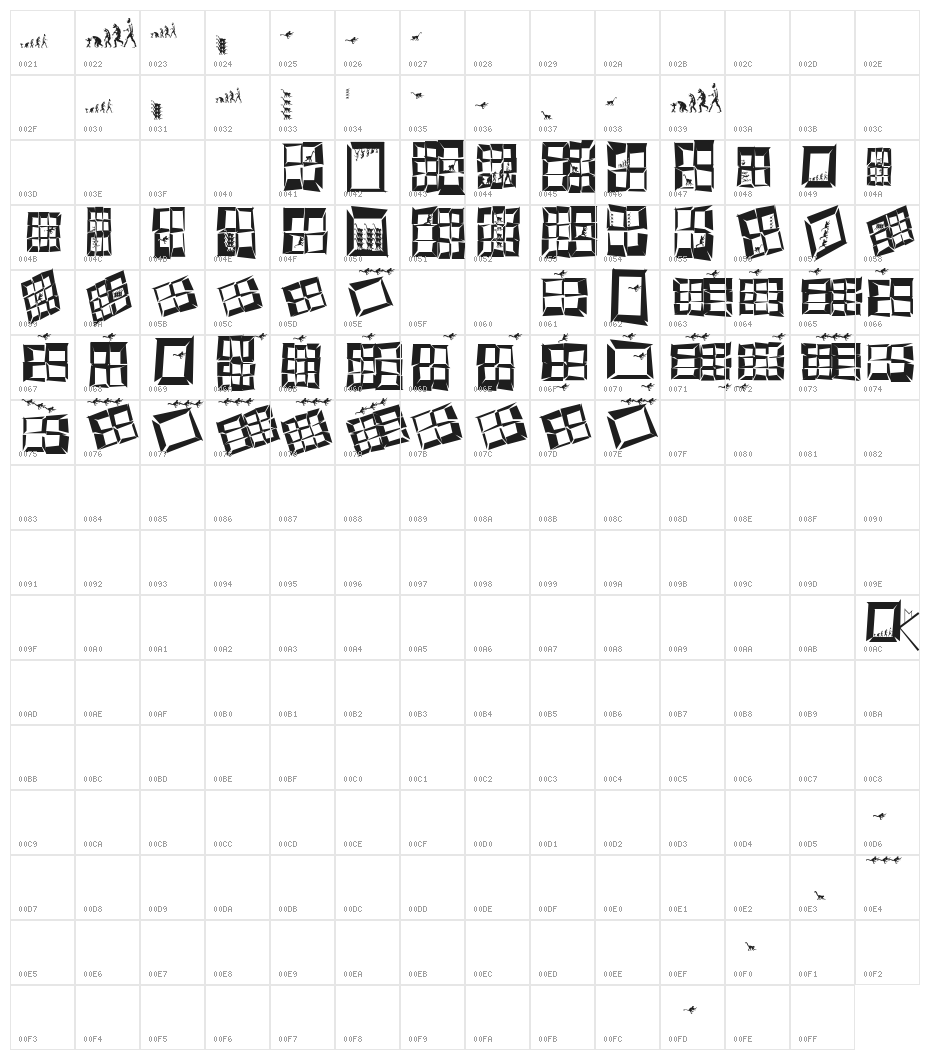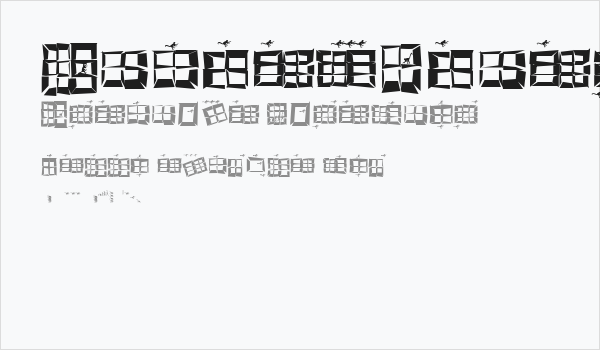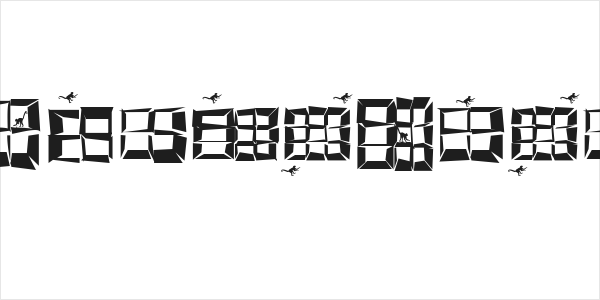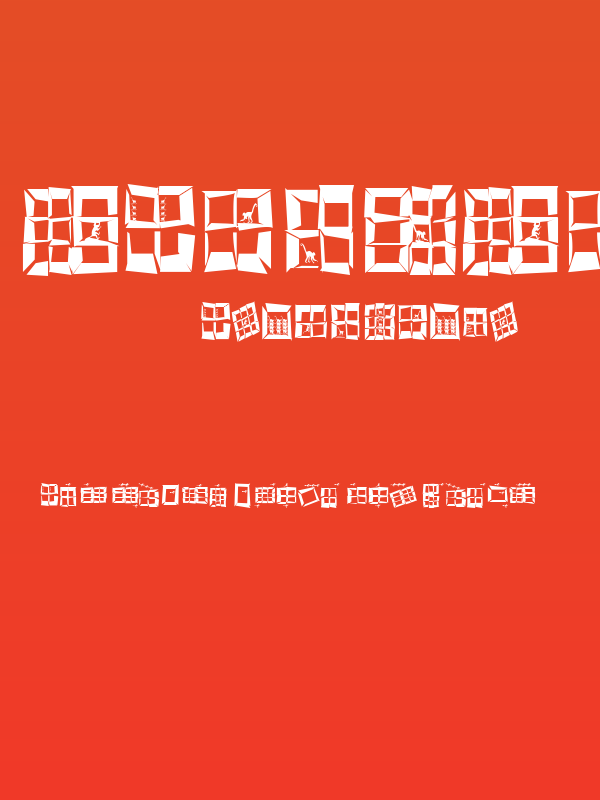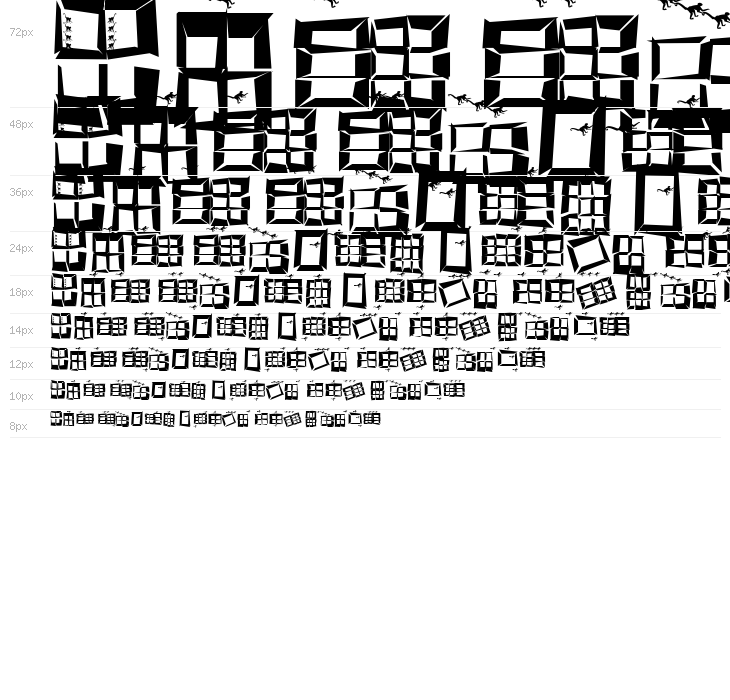
StagesAfterEarthquake Font
This unique and artistic font features a series of evolving stages, incorporating silhouettes of dinosaurs and human evolution within each character. The design is highly decorative, with each letter and number containing intricate details that resemble a timeline of life on Earth. The characters are bold and have a three-dimensional appearance, with a shadow effect that adds depth. The font is visually striking and unconventional, making it suitable for creative and thematic projects. Its distinct style captures attention and conveys a sense of history and transformation.
| Proposed Projects | Ideal for educational posters, museum exhibits, themed event invitations, and creative design projects that focus on evolution or history. |